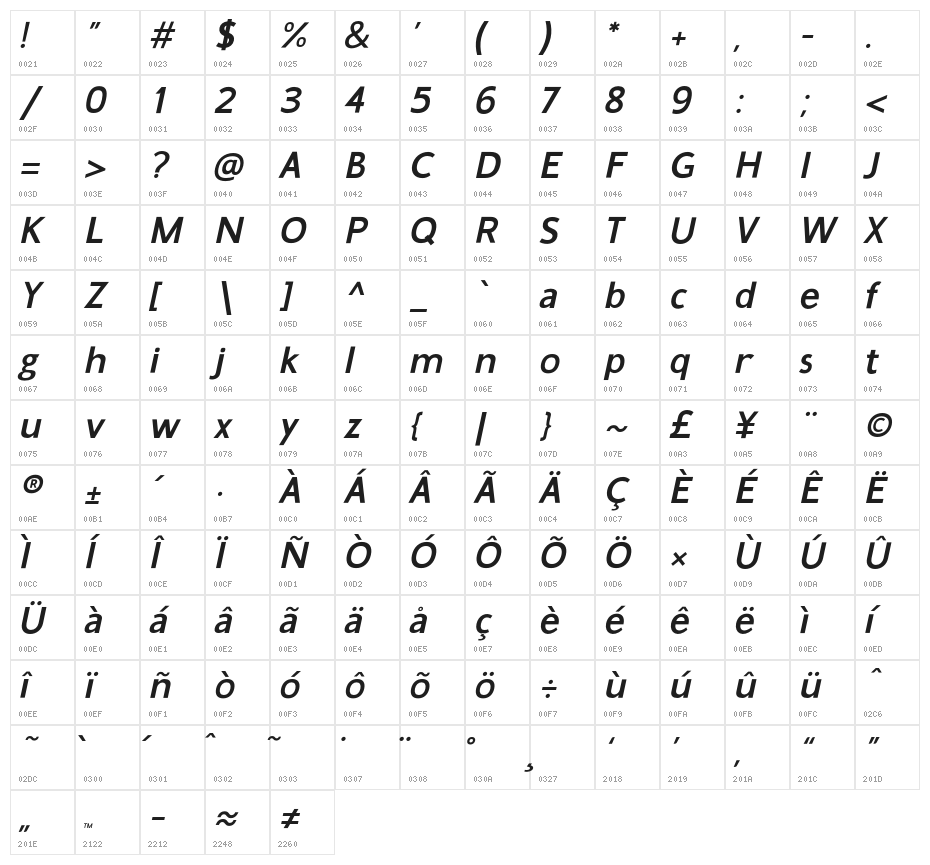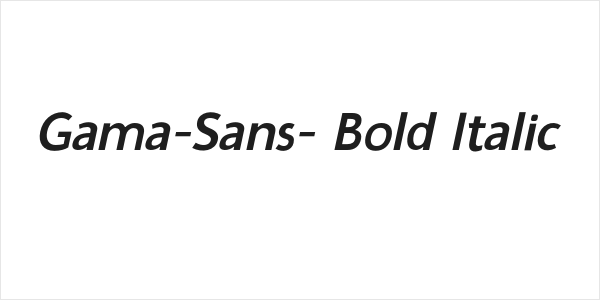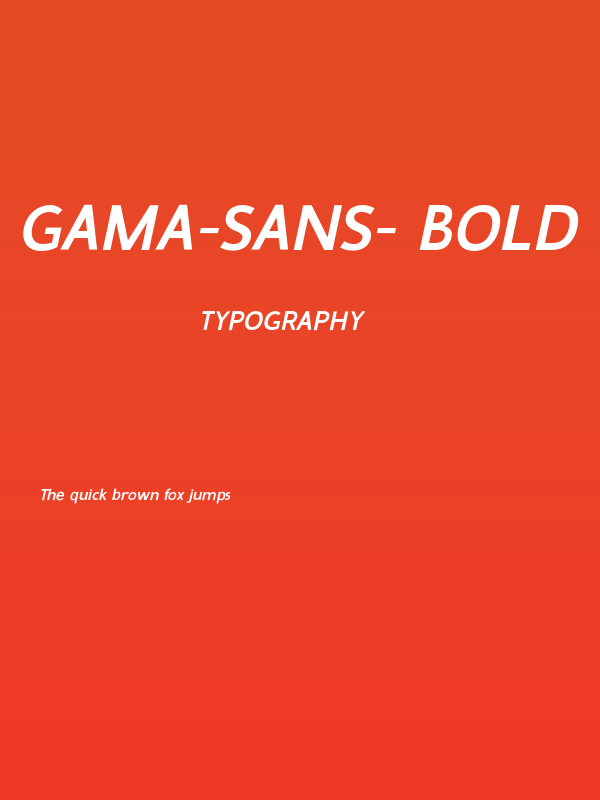
Gama-Sans- Bold Italic Font
Gama-Sans- Bold Italic Description
This font exhibits a modern and sleek sans-serif style with a bold weight and italic posture. The characters are clean and streamlined, offering a contemporary look that is both professional and approachable. The uppercase and lowercase letters maintain a consistent design, with smooth curves and sharp angles that enhance readability. The numerals are well-proportioned, aligning seamlessly with the alphabetic characters. Special characters are distinct and clear, ensuring versatility in various contexts. The overall design is balanced, making it suitable for a wide range of applications.
| Use Case | Headlines, Logos, Web design |
| Proposed Projects | Ideal for branding, advertising, web design, and editorial projects where a modern and bold statement is needed. |